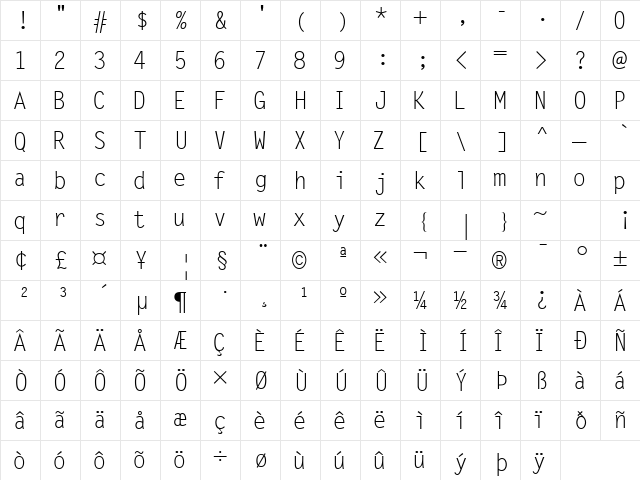
MicrofineSSK Regular
Design Context for MicrofineSSK Typeface
MicrofineSSK offers clean, dependable letterforms without strong stylistic allegiance, making it a practical choice for designers who need flexibility.
Pro Tip: Pair MicrofineSSK with a font of contrasting weight or personality to build a more expressive typographic hierarchy.